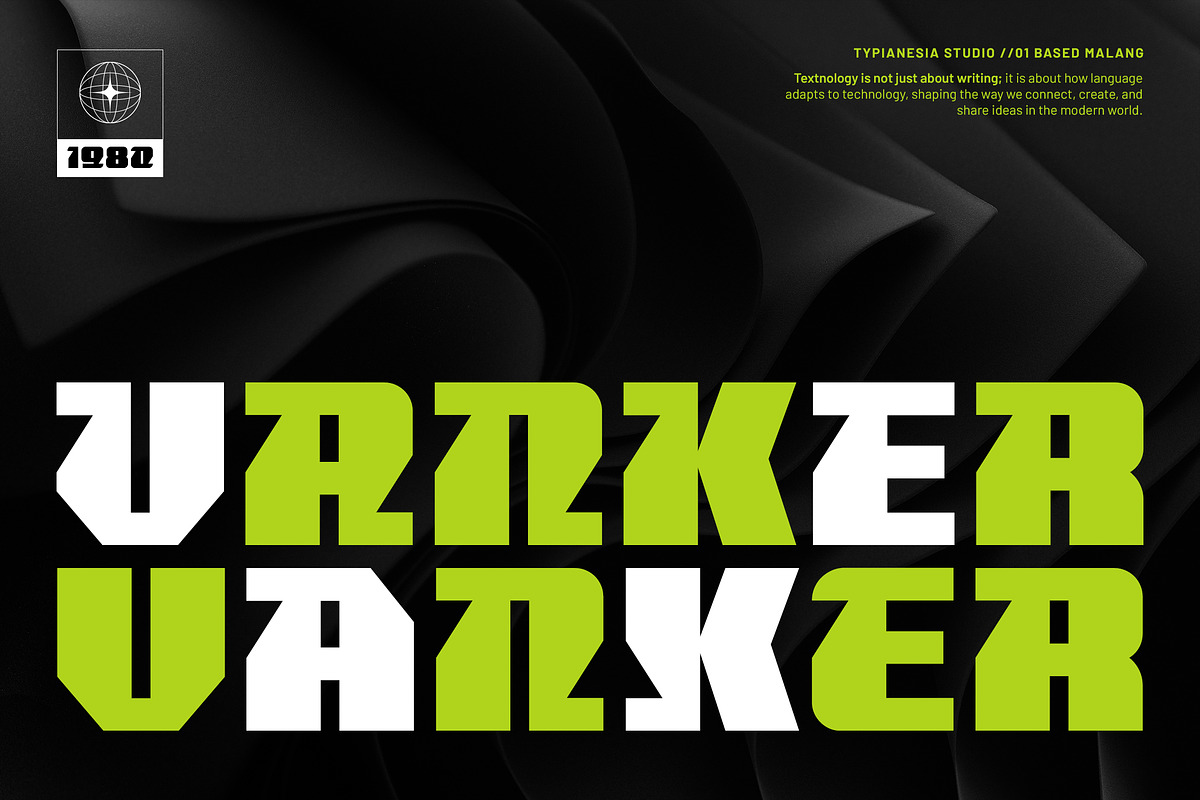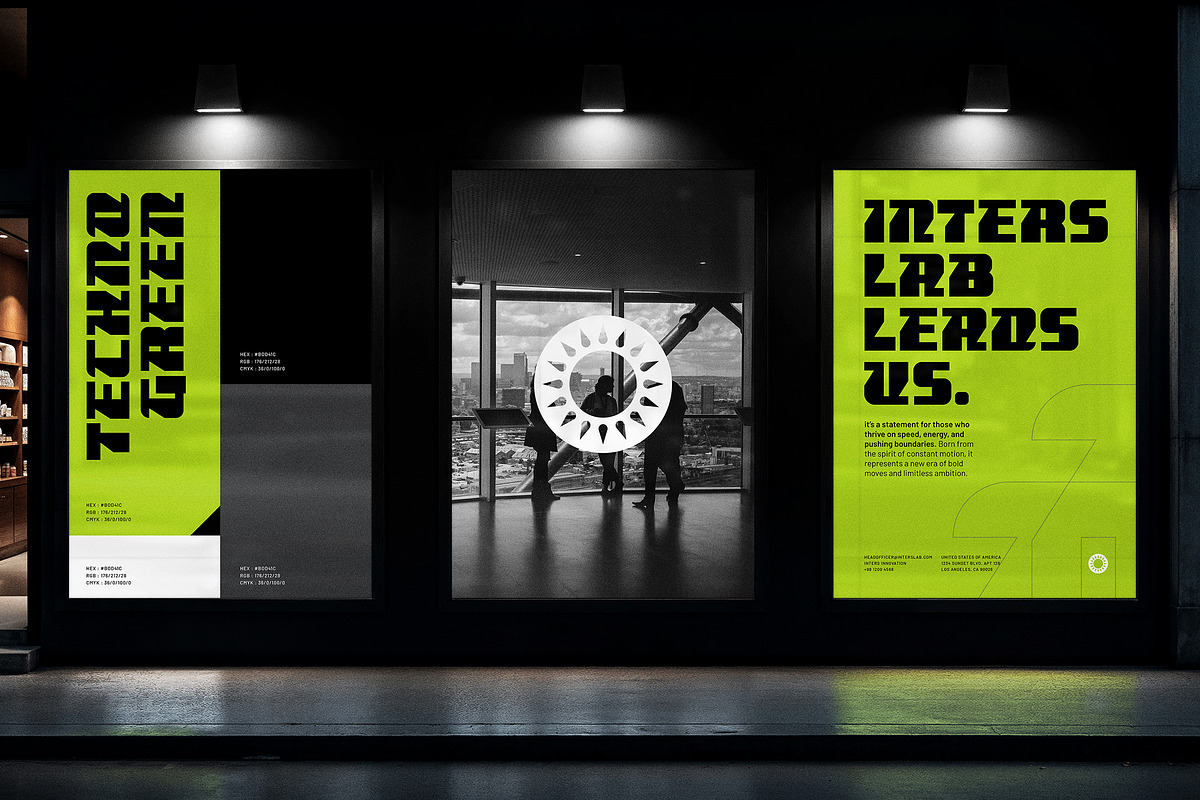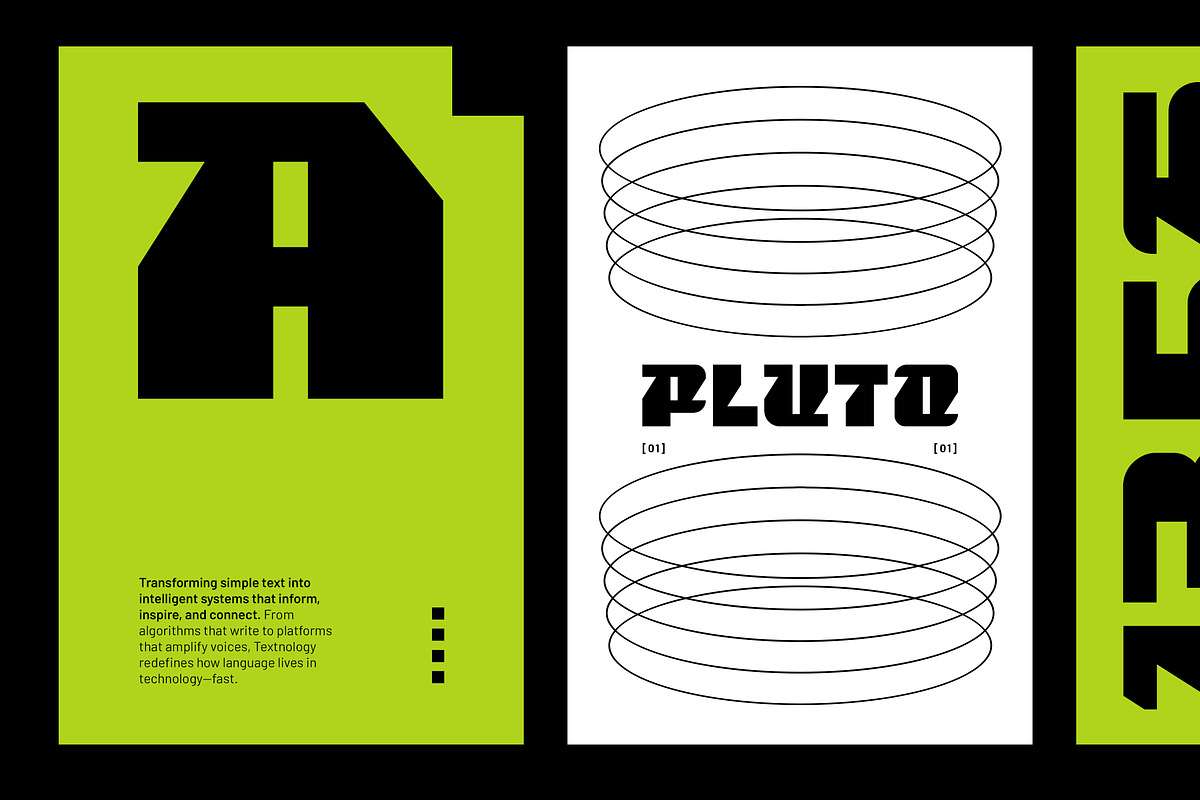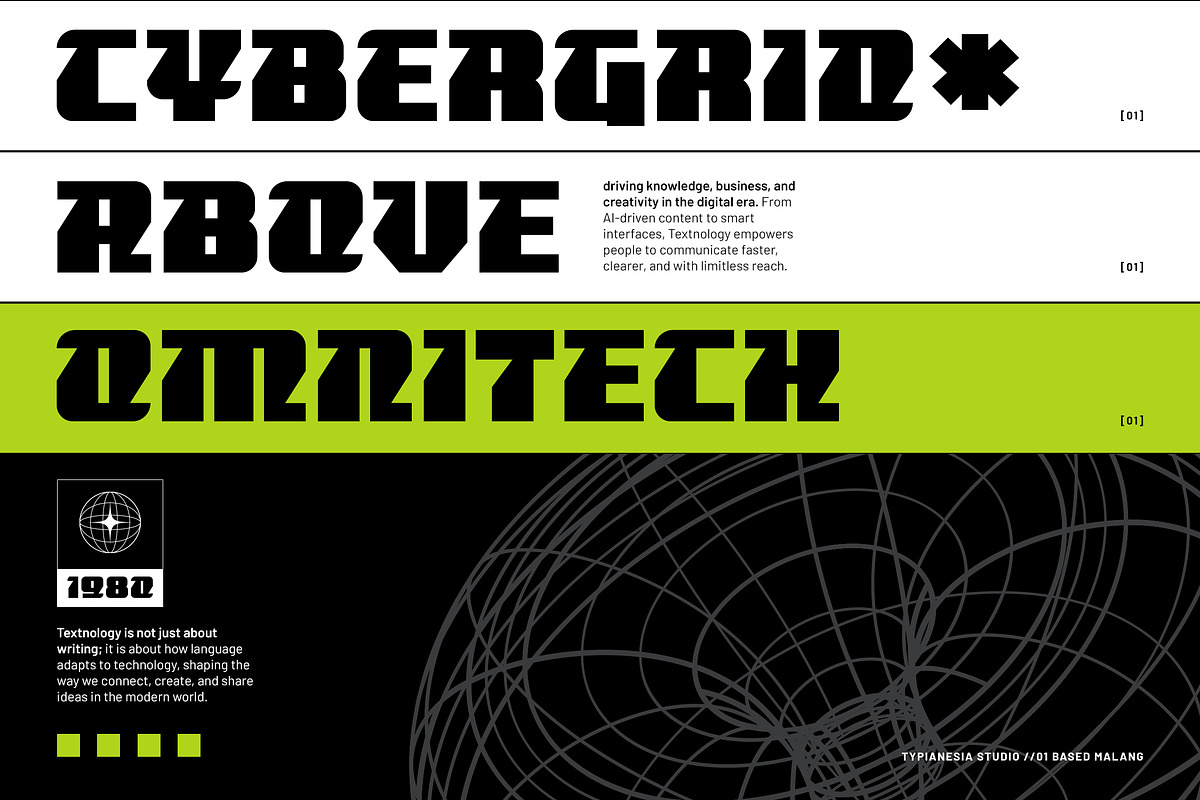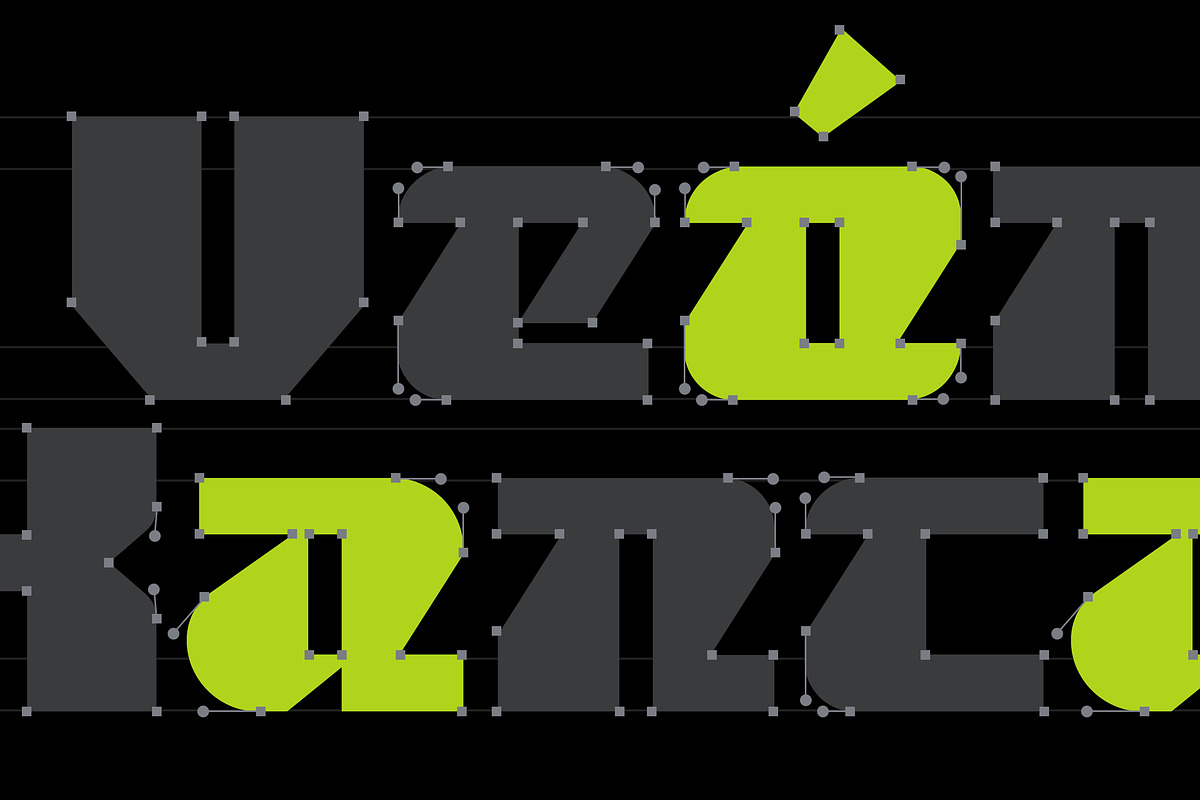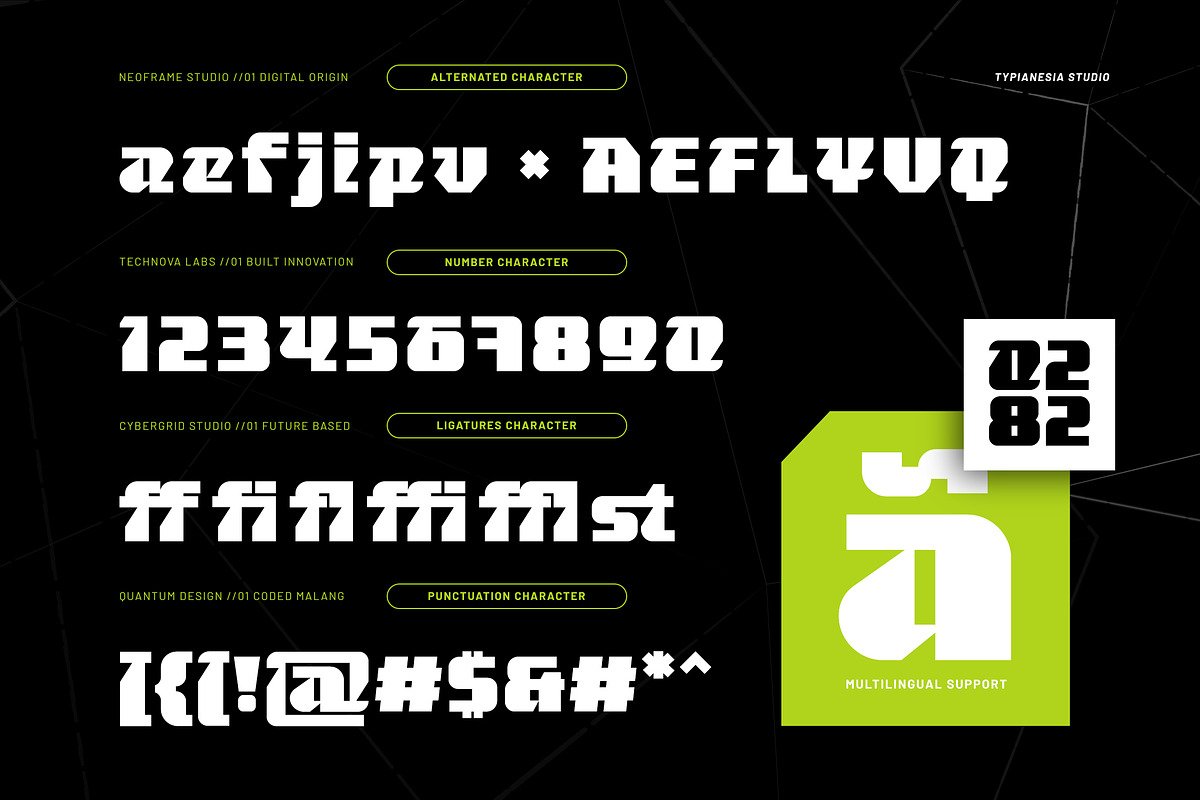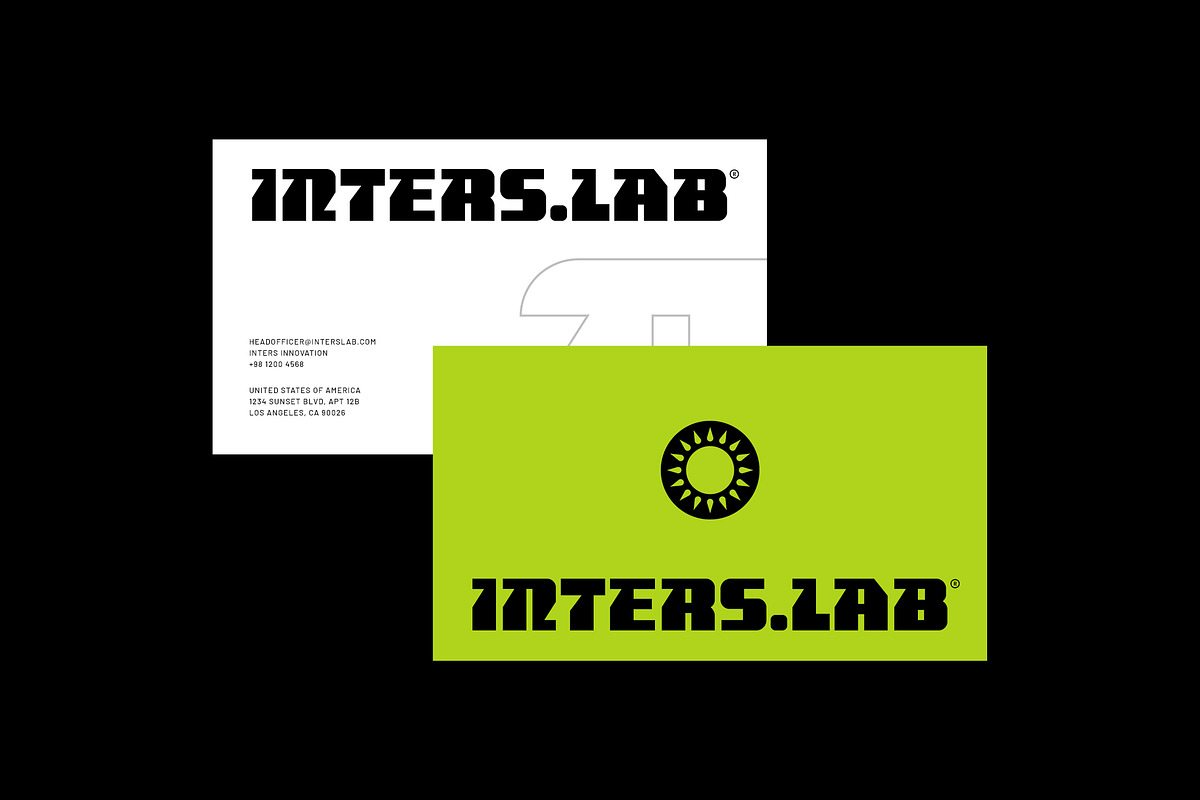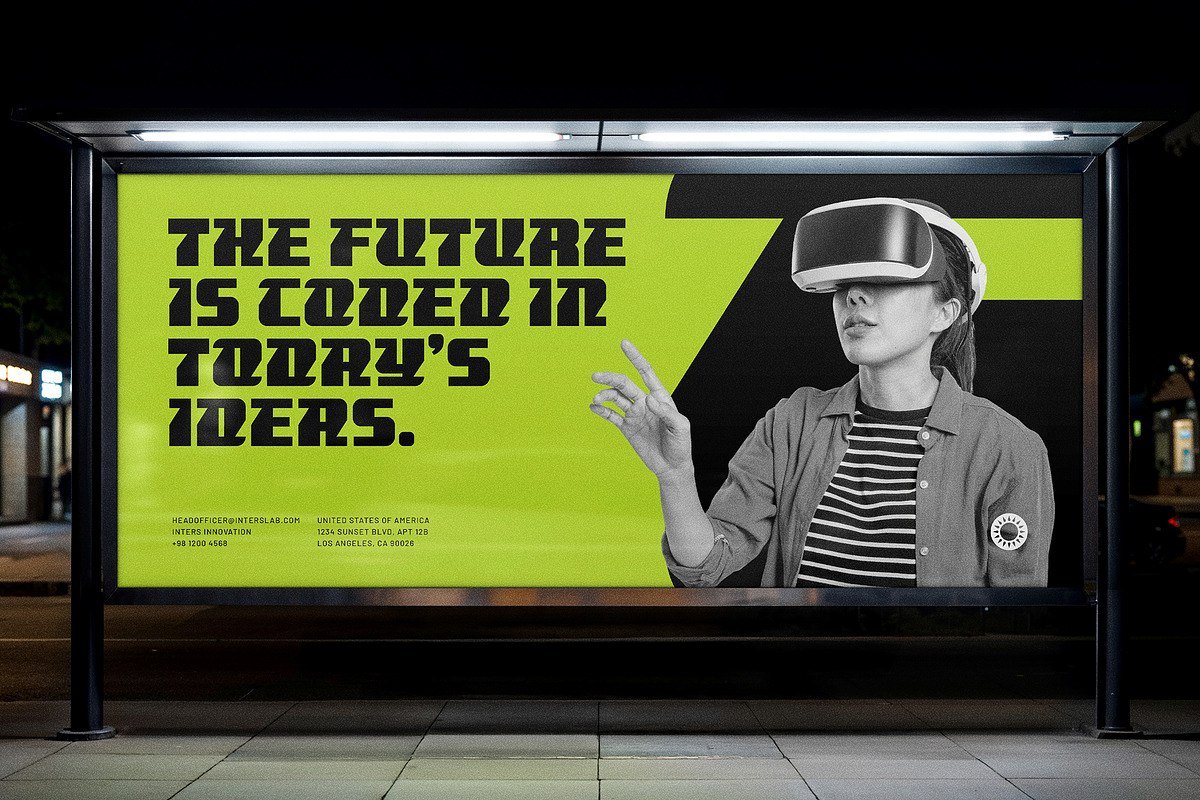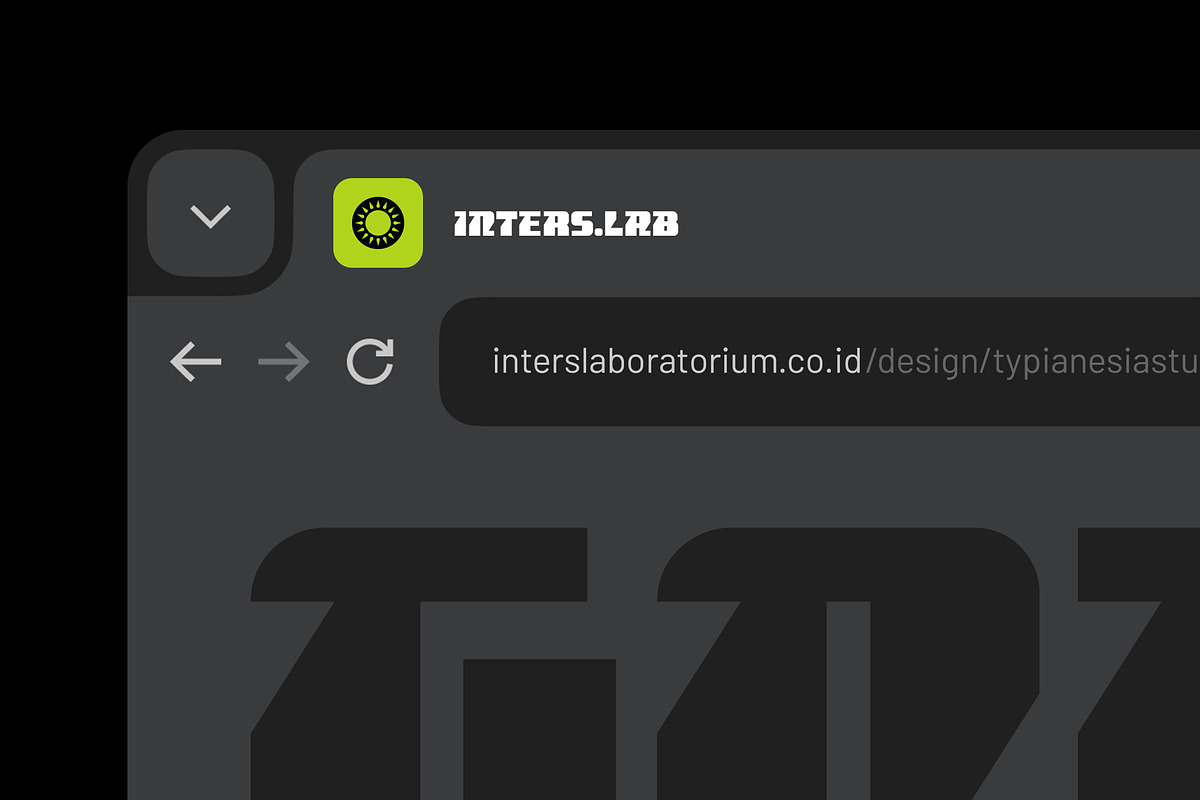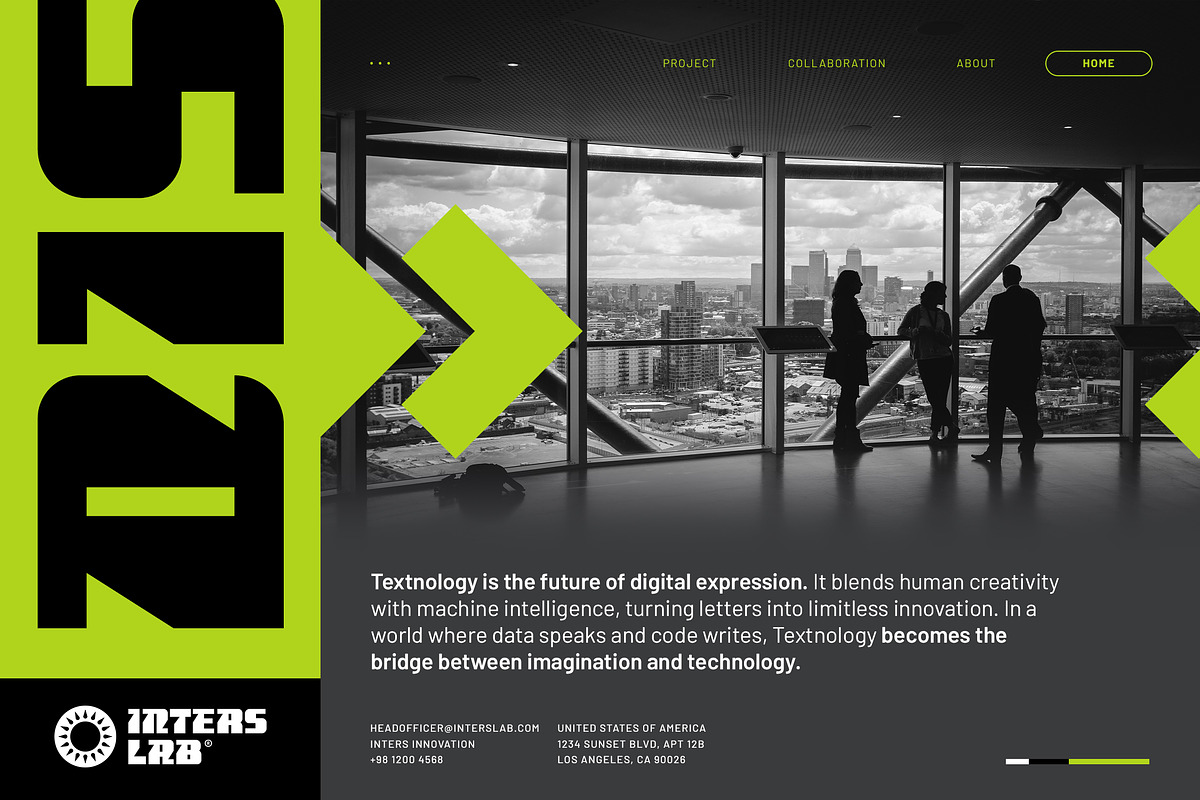
Vanker - Modern Futuristic Scifi
Vanker - Modern Futuristic Scifi Game Font - Bold Tech Logo Display Font
Vanker is a Modern Futuristic Scifi Game Font, that embodies the clean, sharp aesthetic of digital technology and the vastness of space. This typeface is exceptionally bold and geometric, delivering powerful headlines and impactful titles. It is the ideal for the Tech and Web industries, creating high-energy game titles, Scifi movie posters, strong brand logos, high-intensity advertising campaigns and any projects that require a touch of a futuristic and cutting edge look, this font ensuring your message is dominant and future-focused.